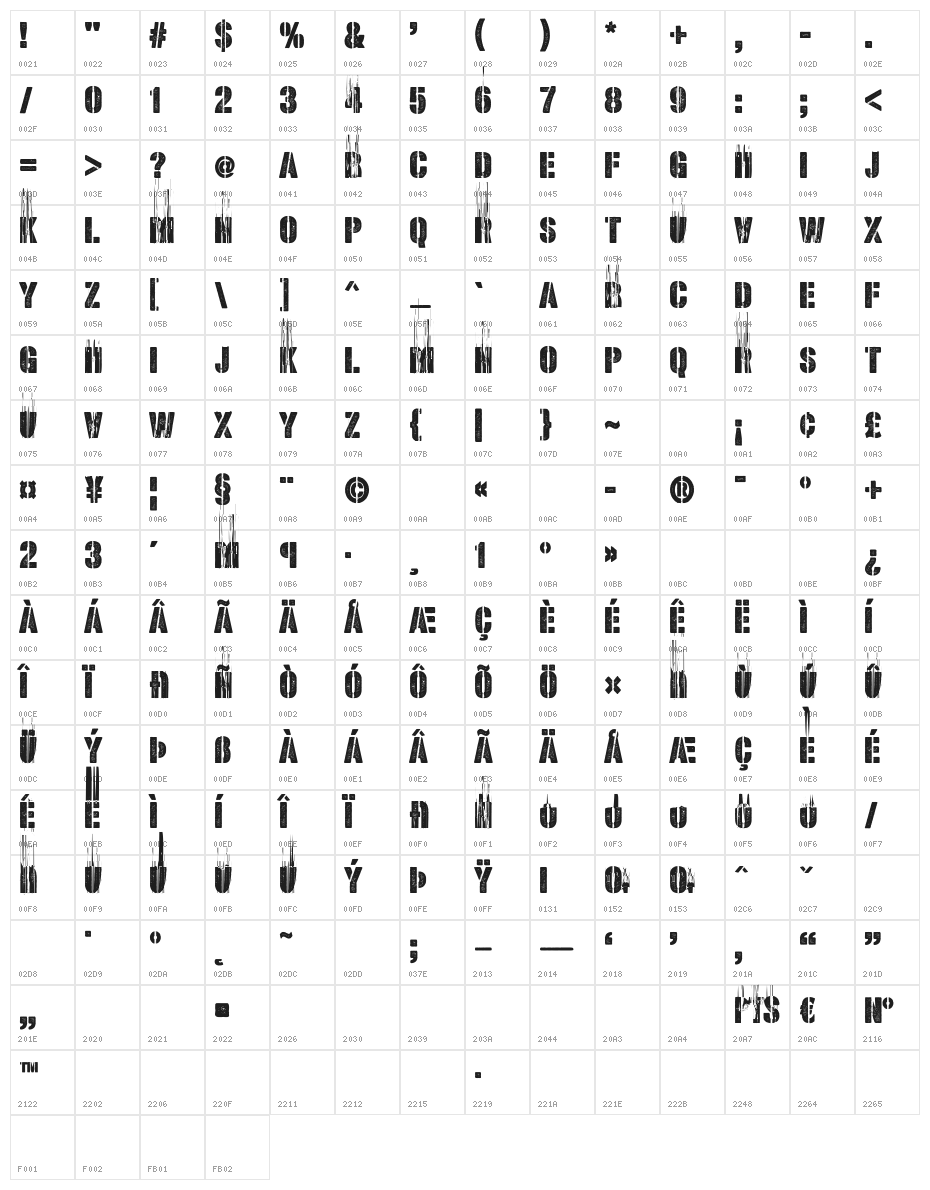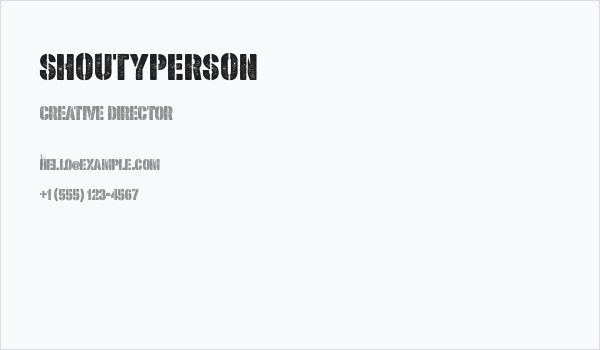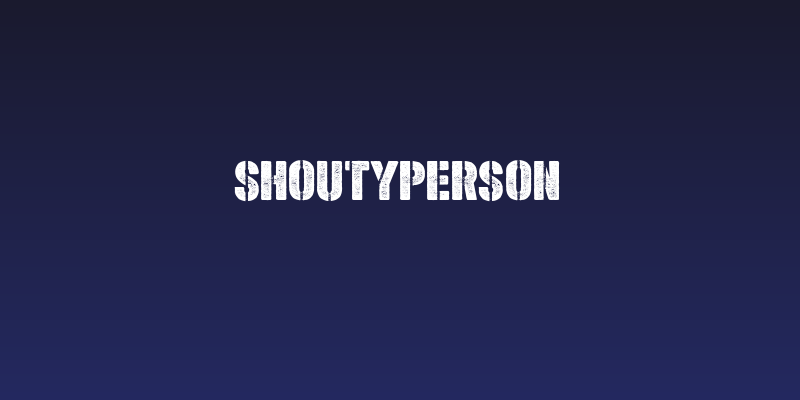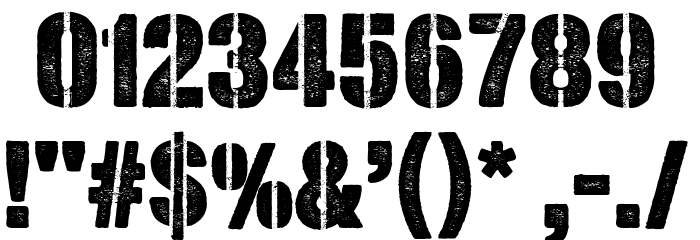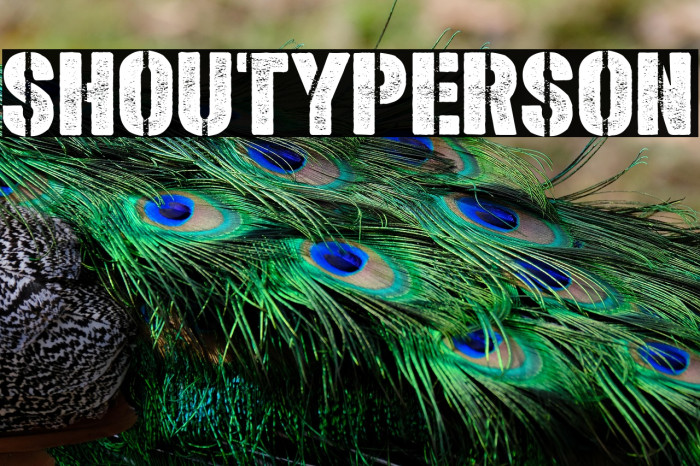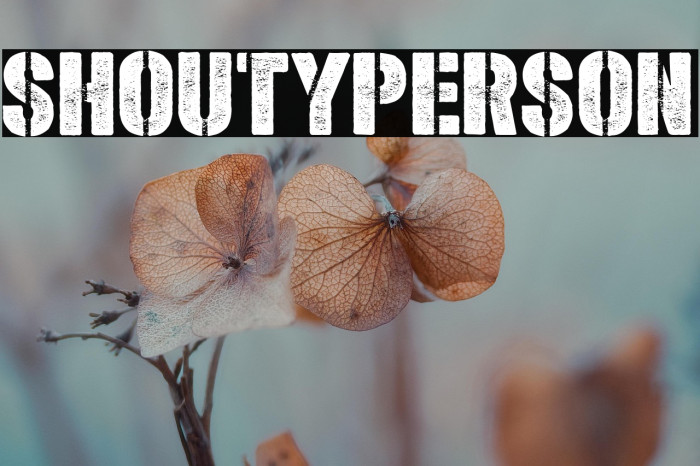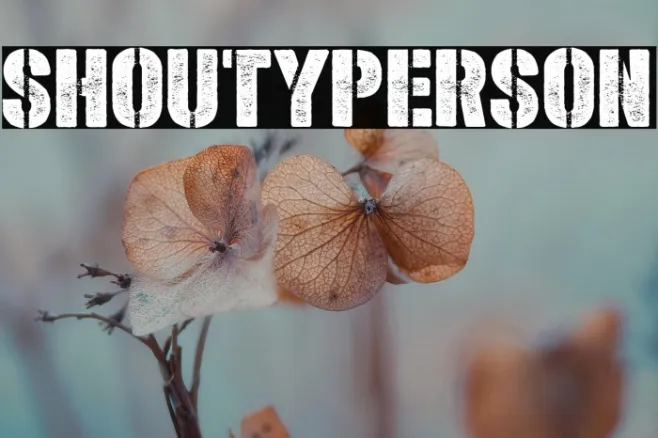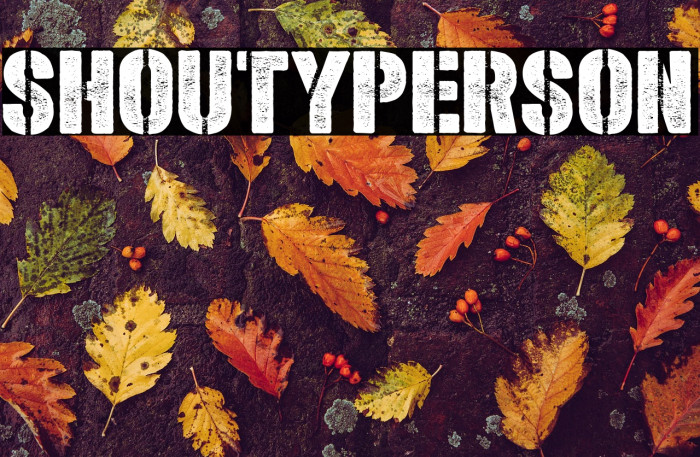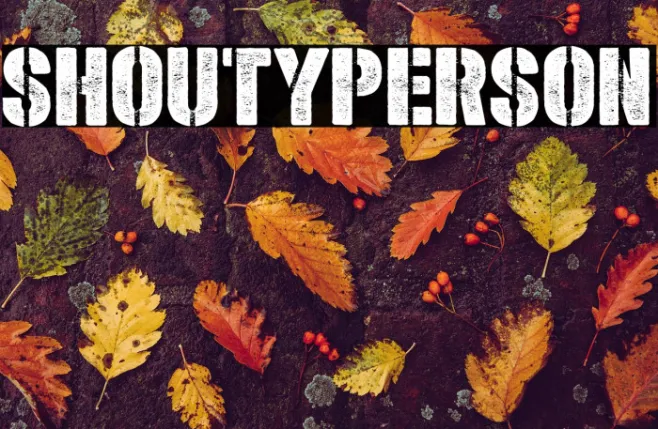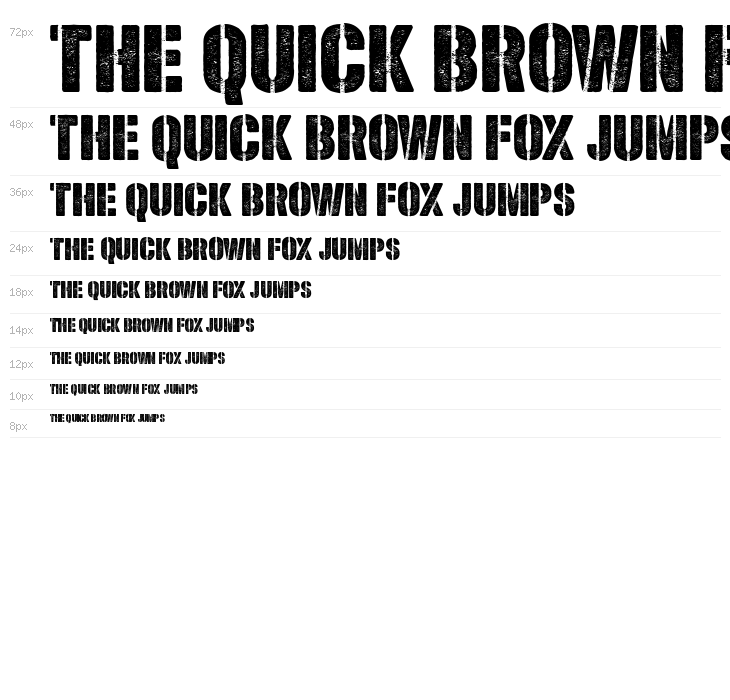
Shoutyperson Font
Shoutyperson Description
This font features a bold, distressed style with a rugged, textured appearance that gives it a vintage, worn-out look. The characters are blocky and robust, with a uniform thickness that conveys strength and impact. The distressed texture adds a layer of depth and character, making it ideal for designs that require a gritty, industrial feel. The uppercase and lowercase letters maintain a consistent style, and the numerals and special characters are equally bold and textured, ensuring a cohesive look across all text elements.